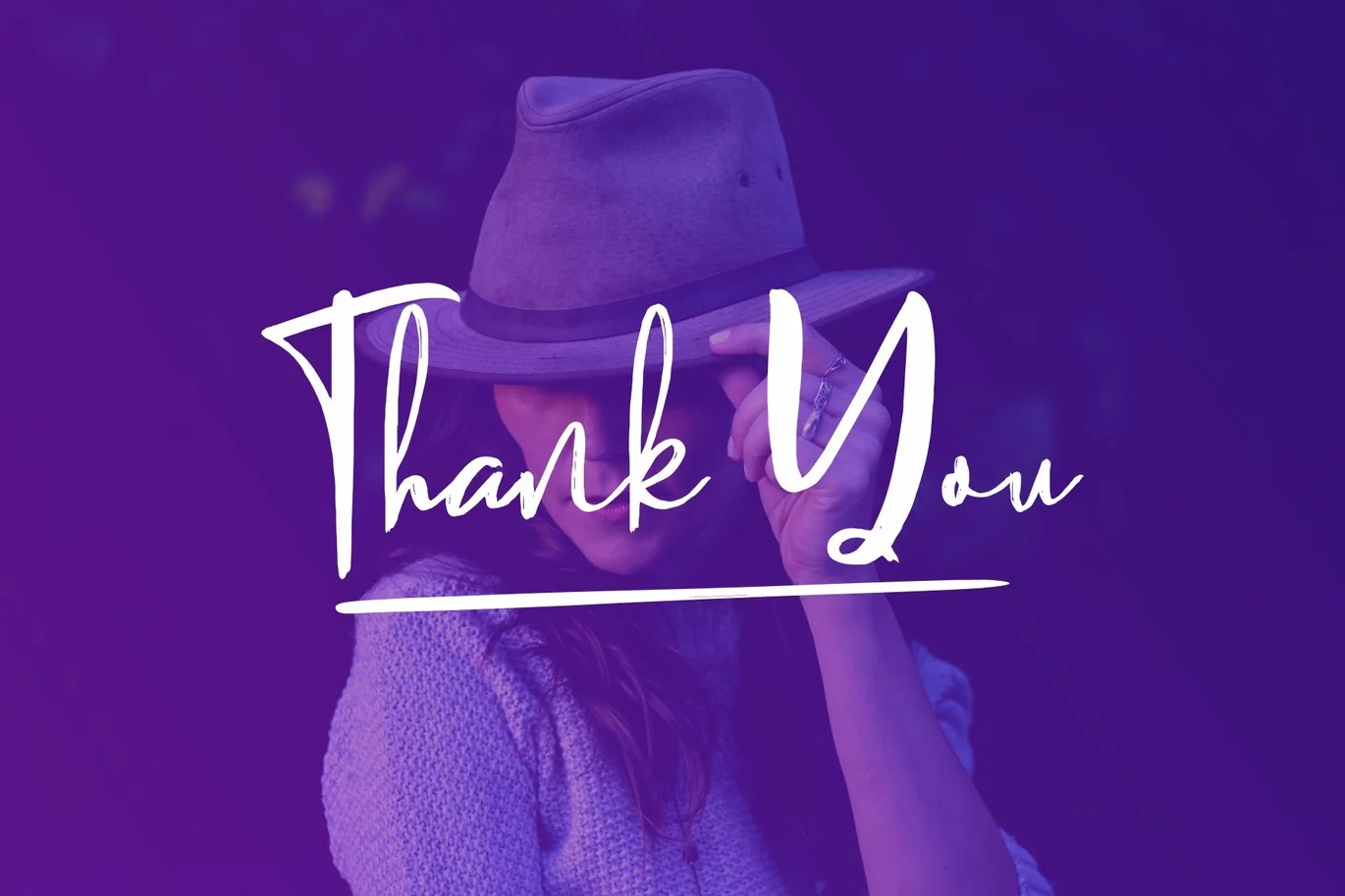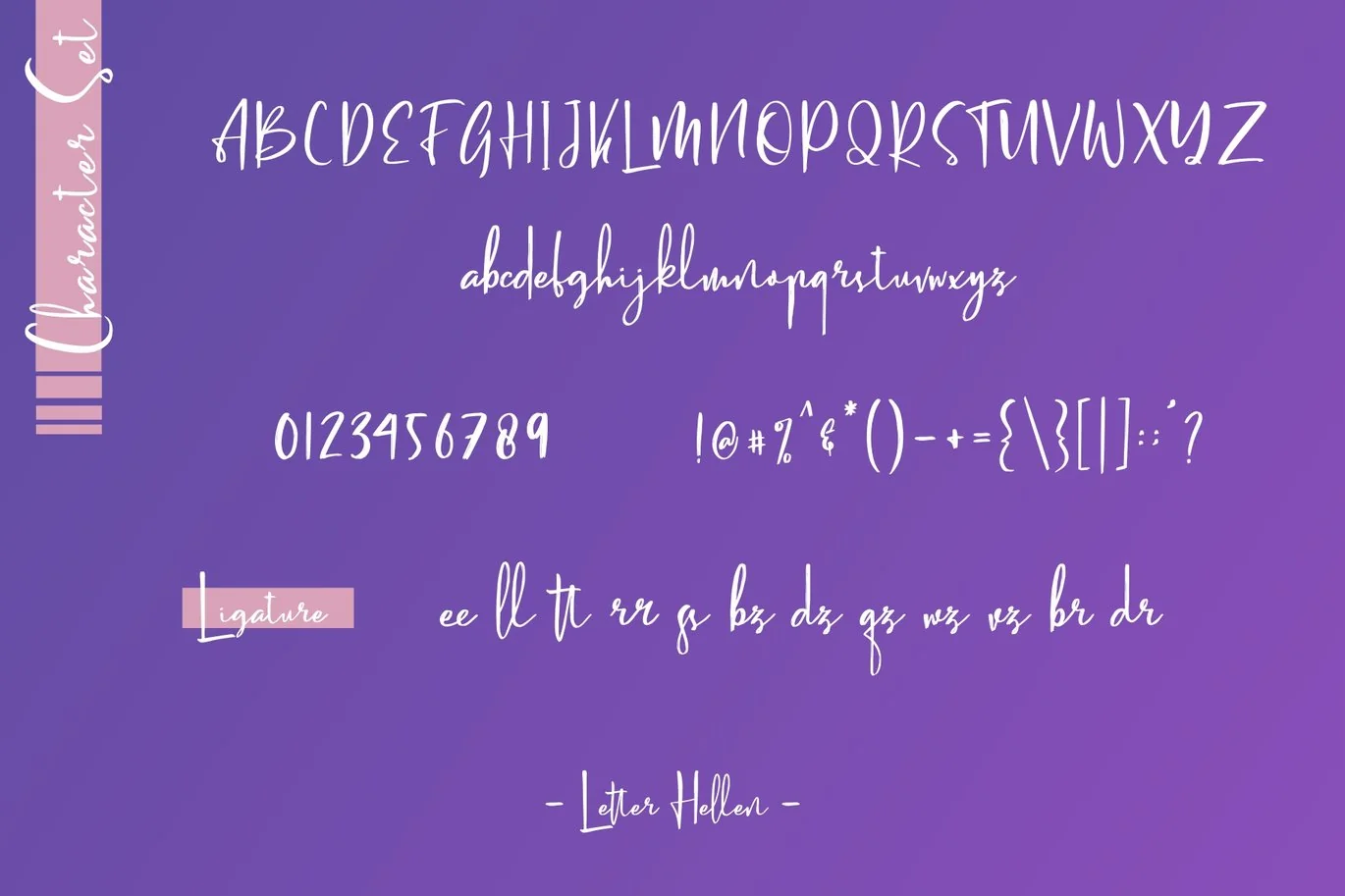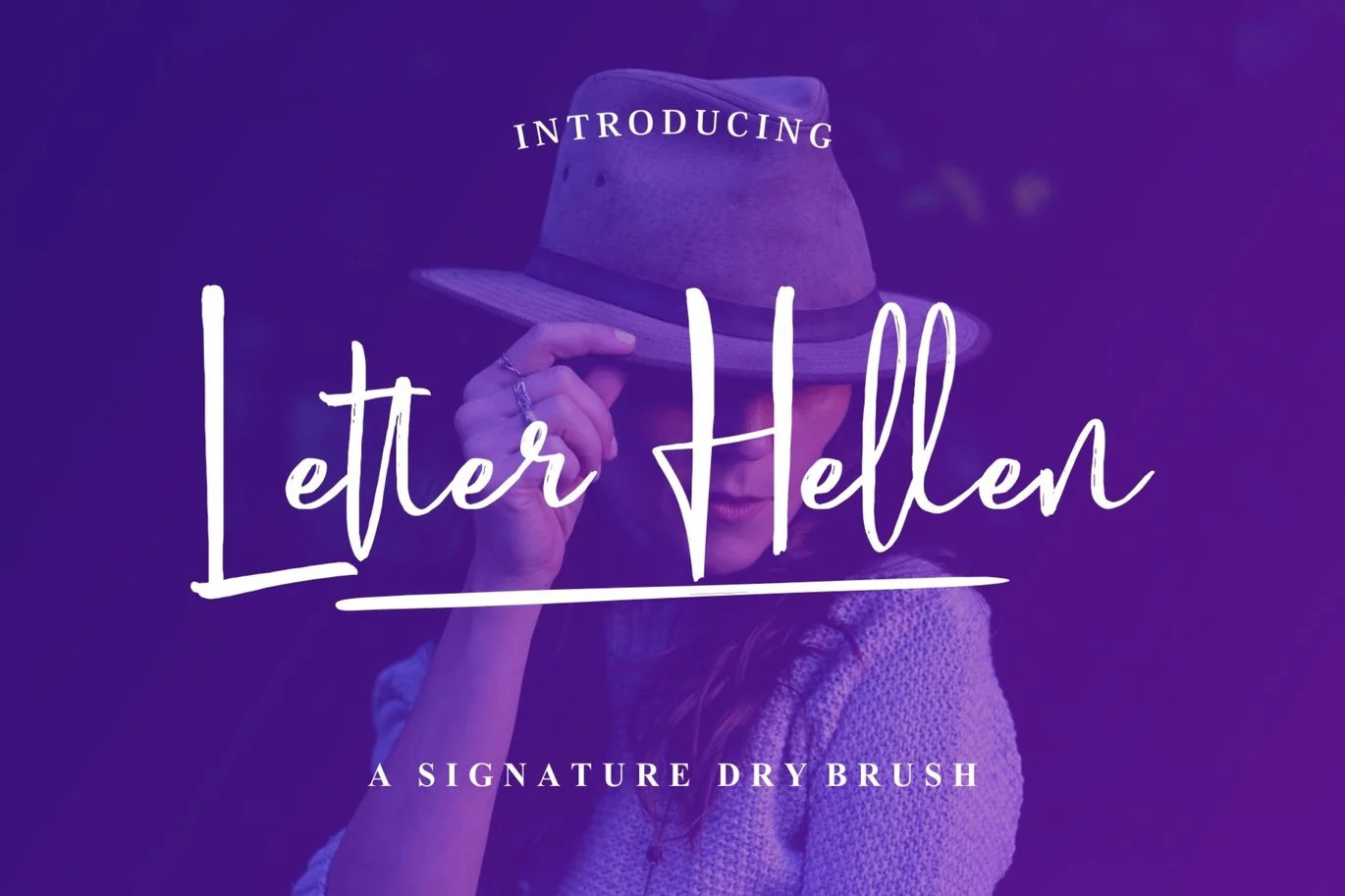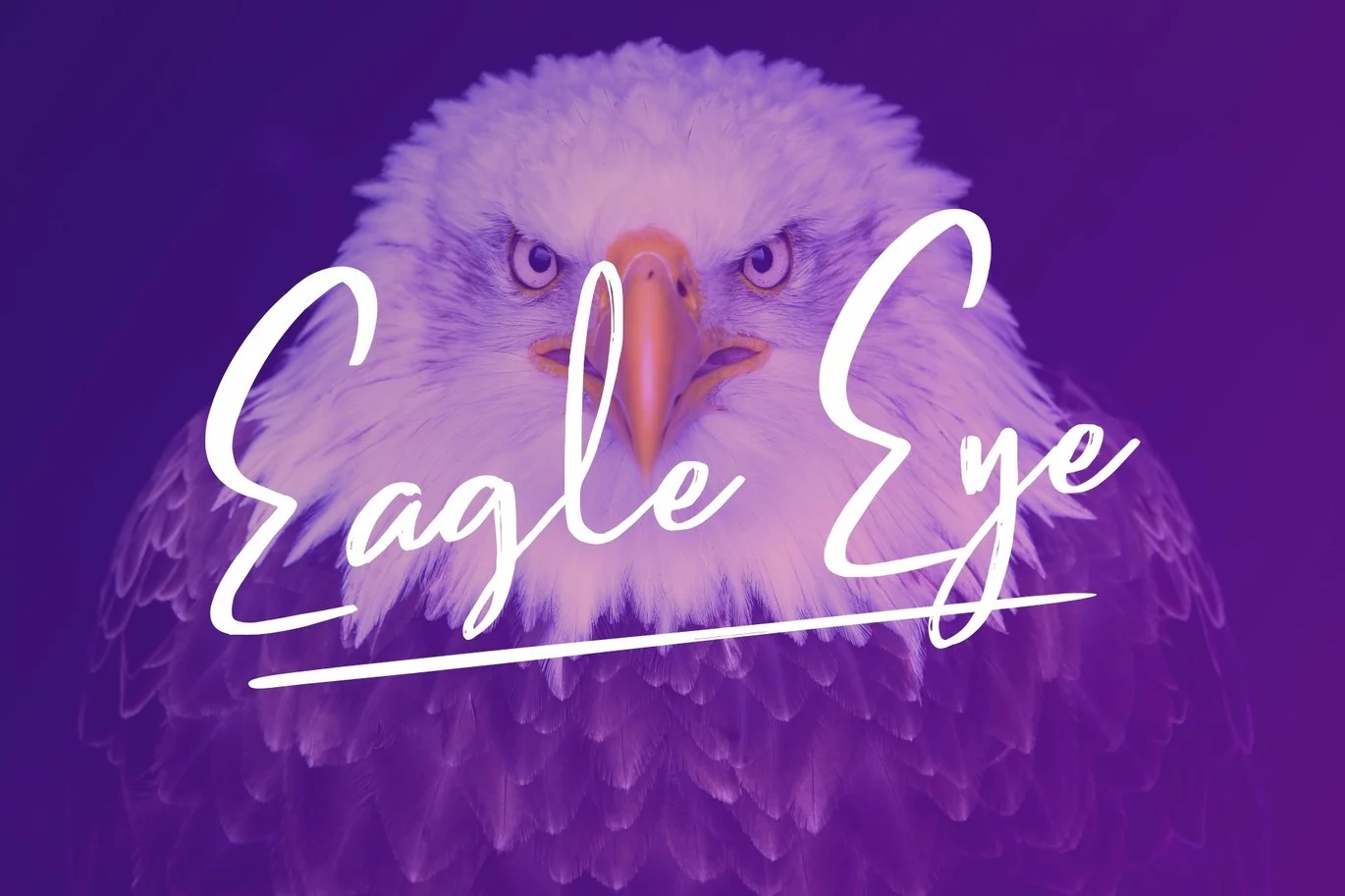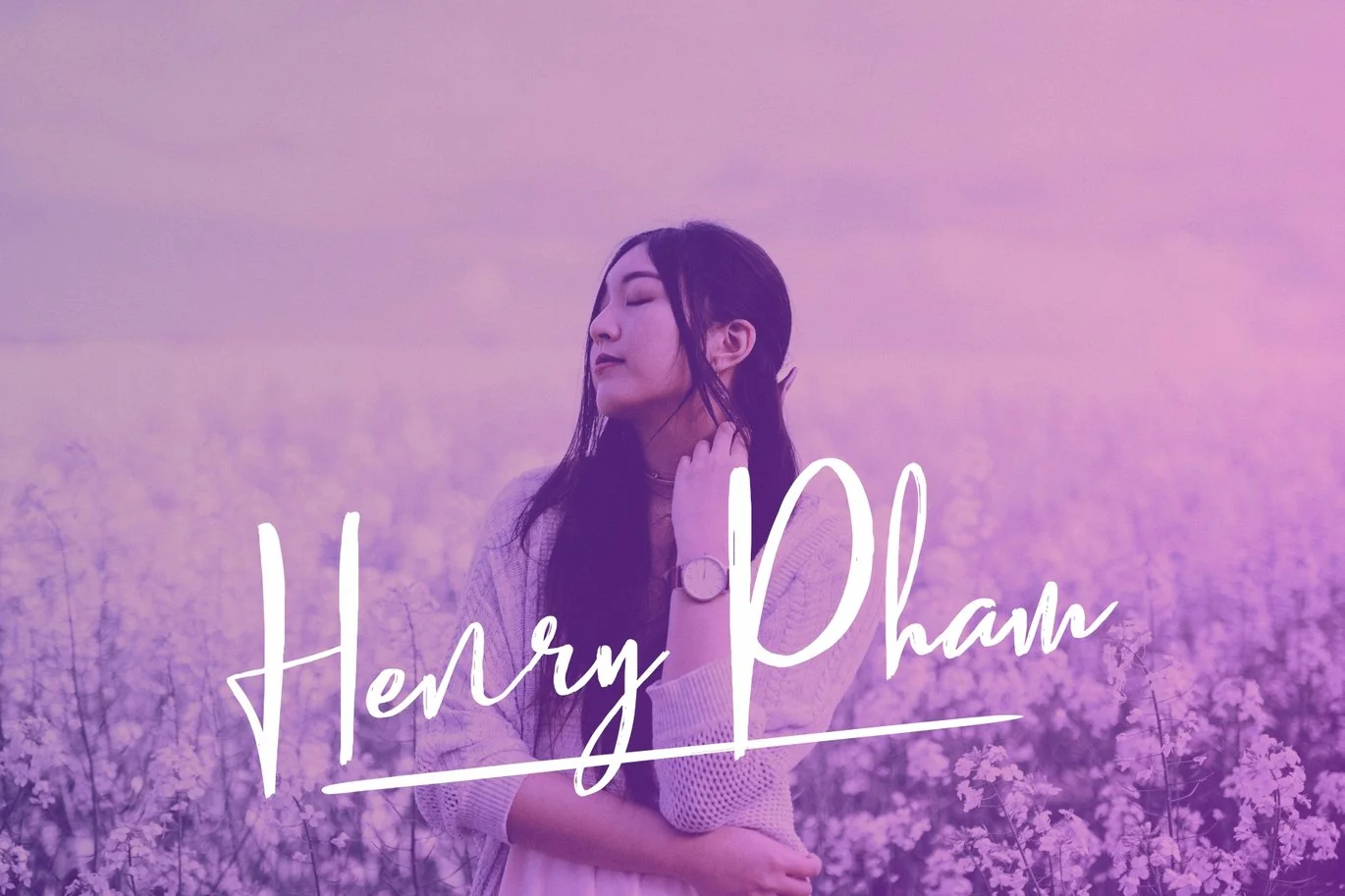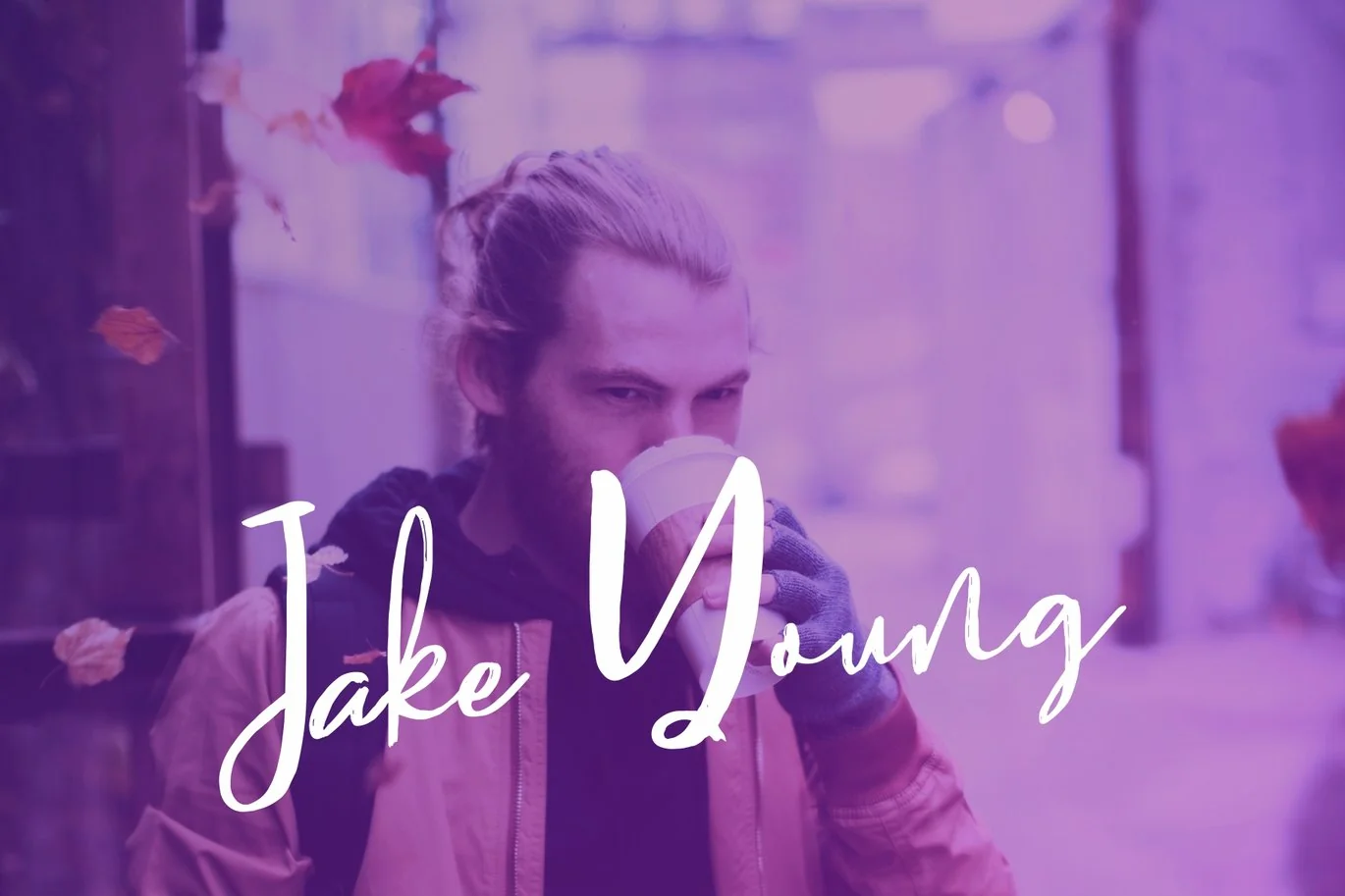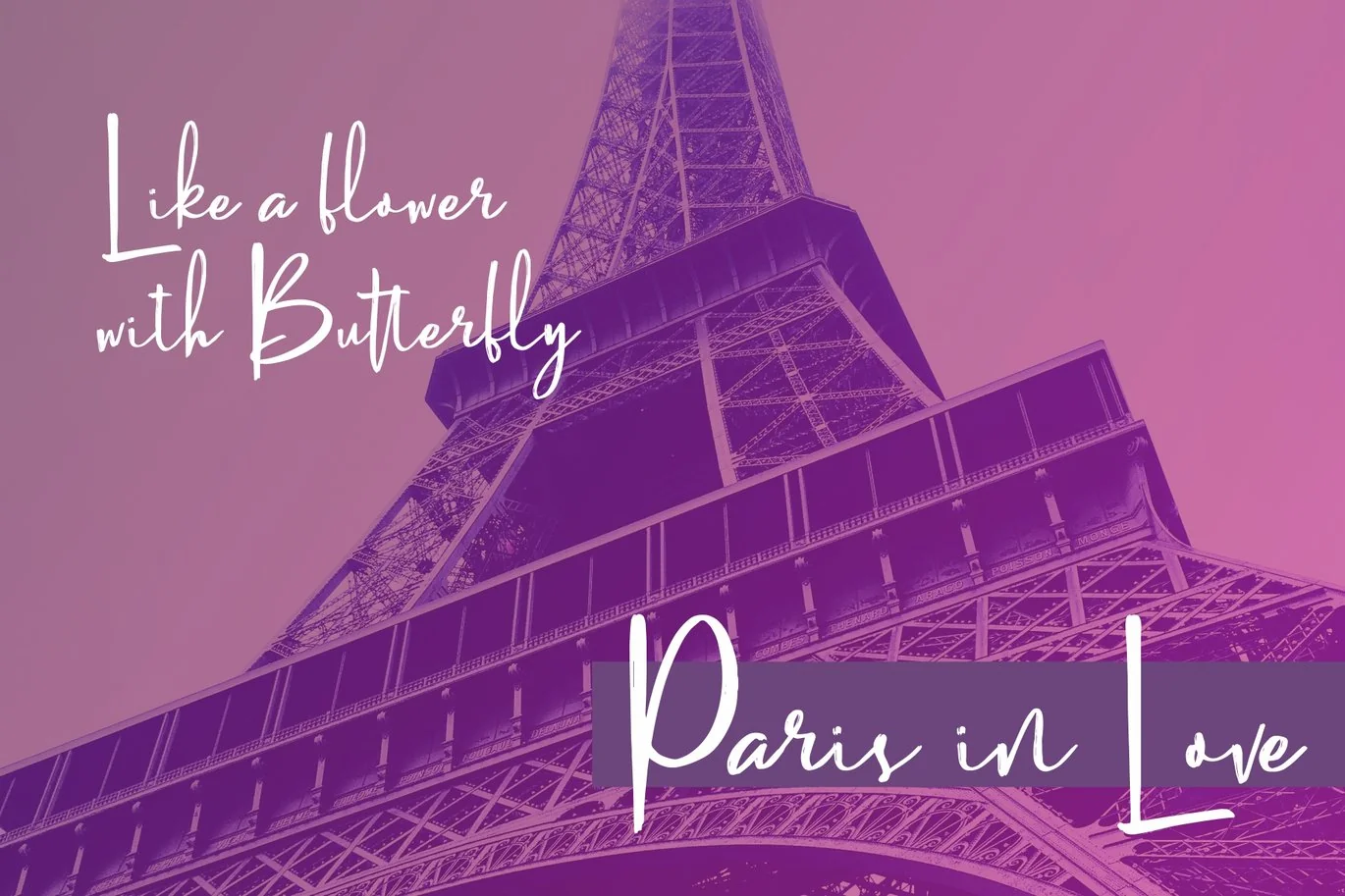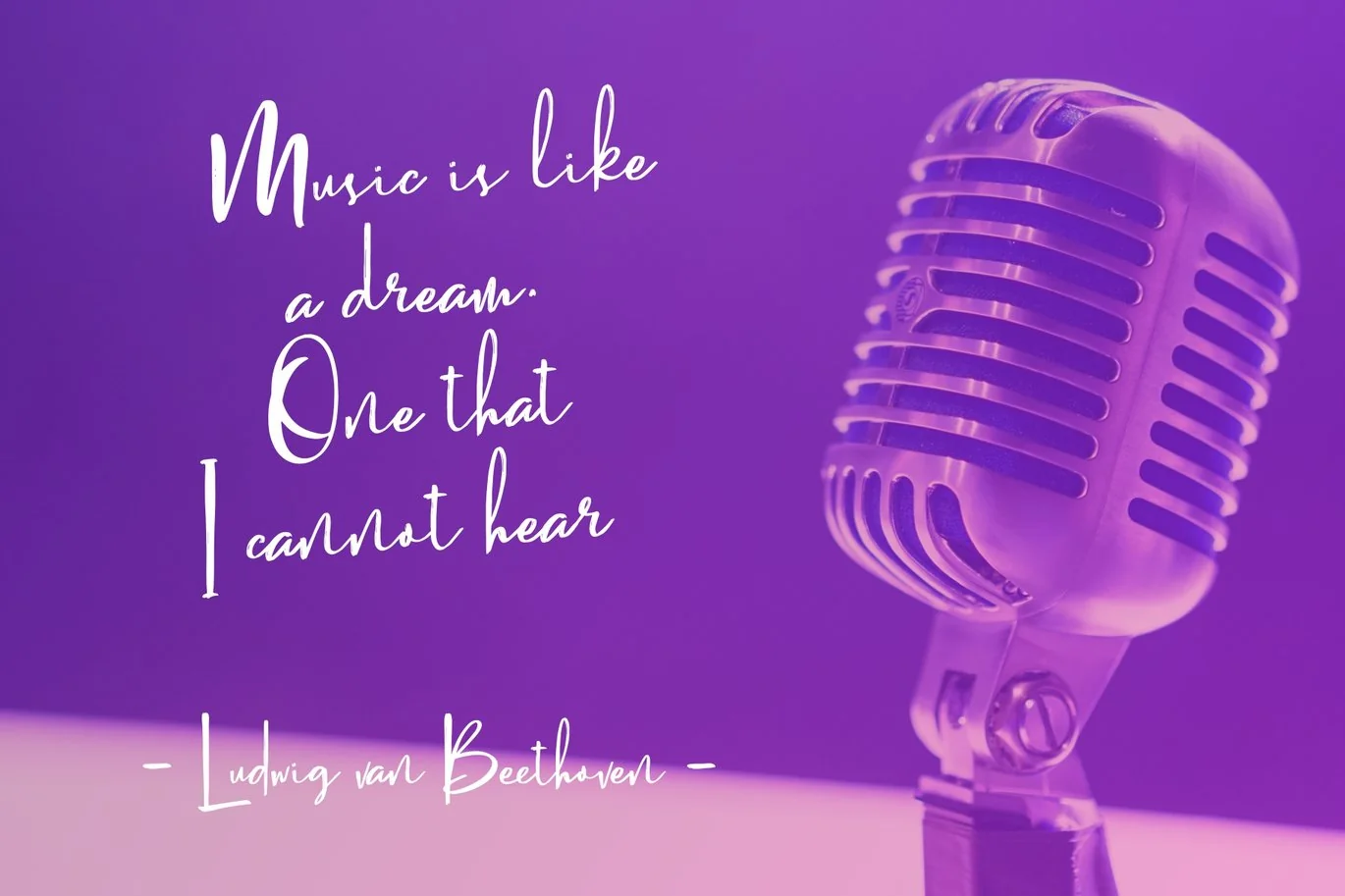
Letter Hellen | Signature Font
Introducing Letter Hellen – a new signature dry brush with elegant lines that makes this font perfect for imaging your personal brand and every great project, such as: logos, invitations, stationery, wedding designs, social media posts, advertisements, product packaging, product design, labels, photography, watermarks, special events, and more!
- Ligature and Opentype features (Stylistic Set)
- Versatile for poster, logotype, labels, book cover